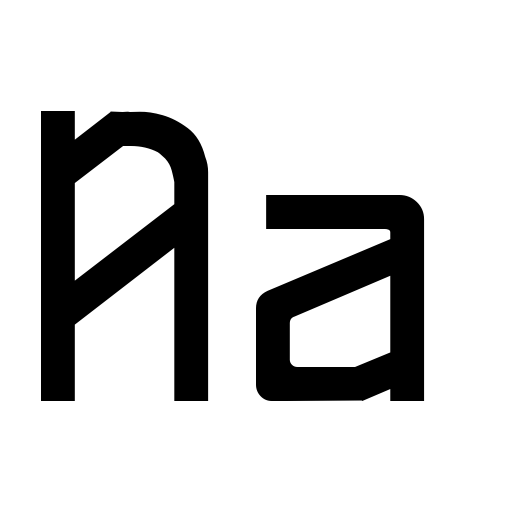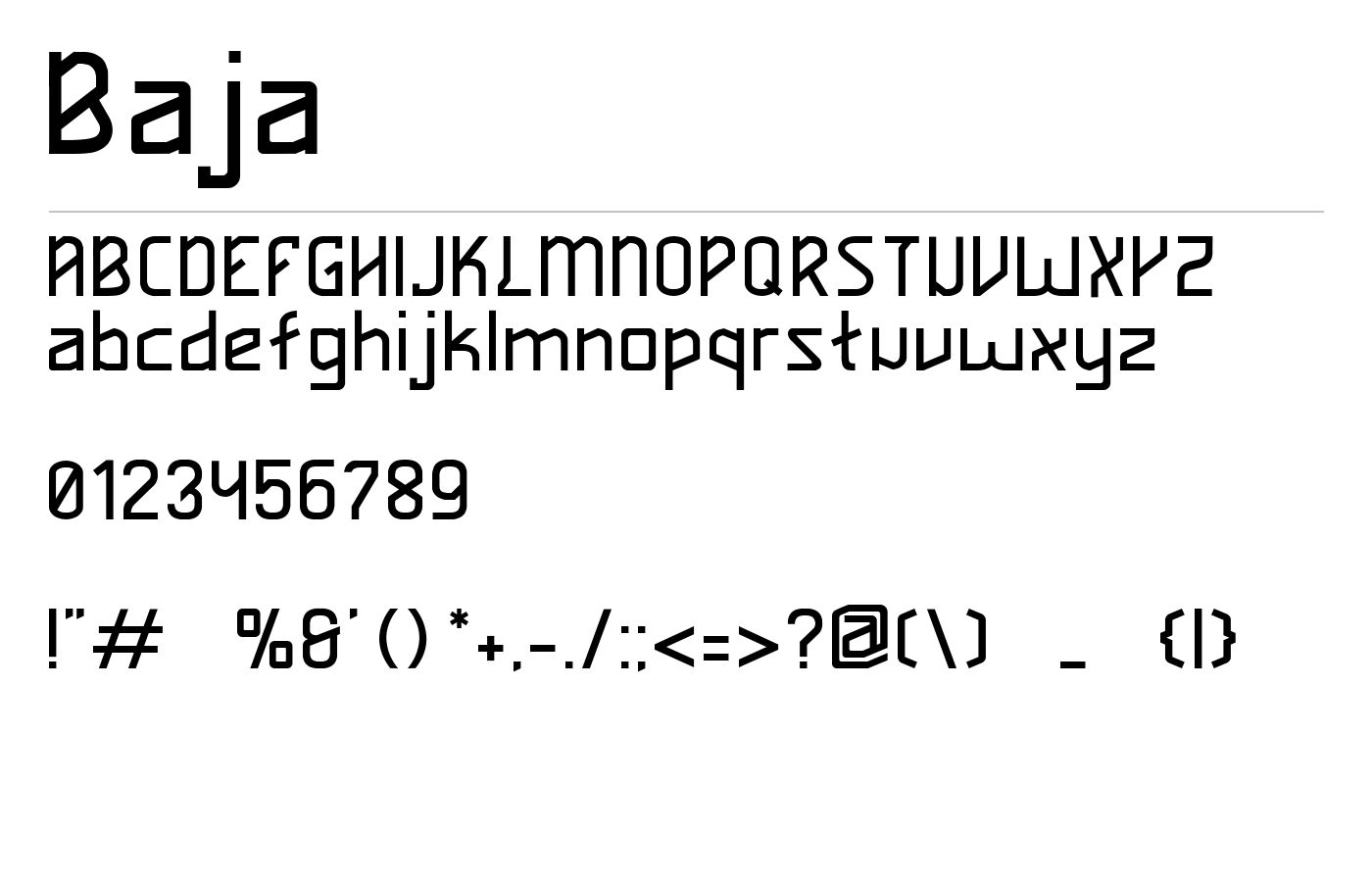
Baja is a modern sans serif font with a narrow, slightly condensed structure and a medium x-height, featuring a unique angular and geometric design that gives it a distinct, edgy personality. Its strokes show consistent weight with subtle sharp corners, making it feel clean yet unconventional—ideal for tech, futuristic branding, or editorial headlines that want to stand out with a crisp, modern look. This font works best in logos, posters, and digital interfaces where a contemporary yet approachable style is desired.
Baja Font
About Baja Font